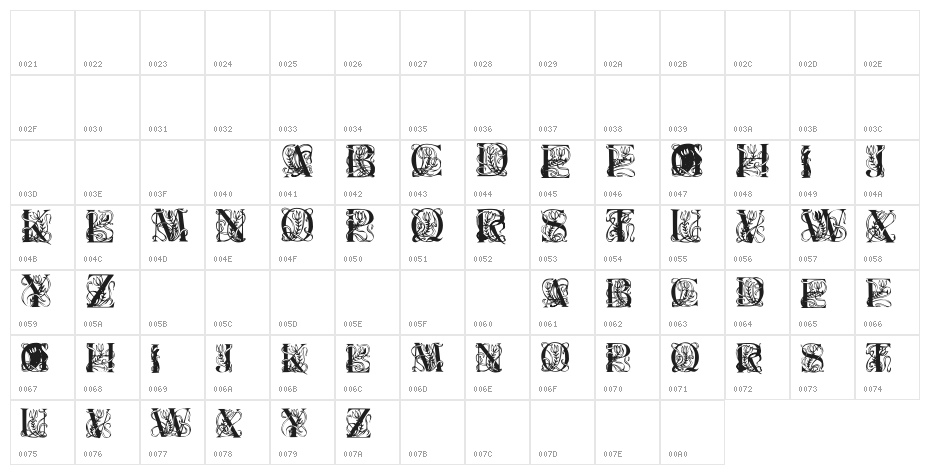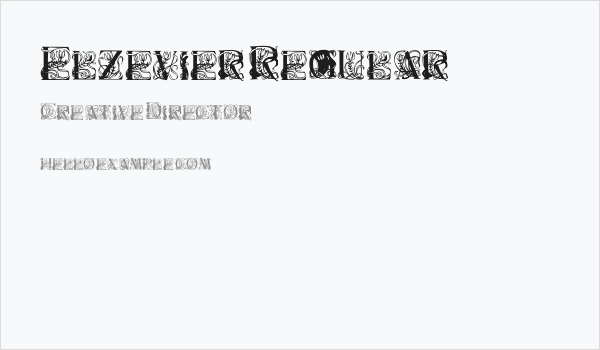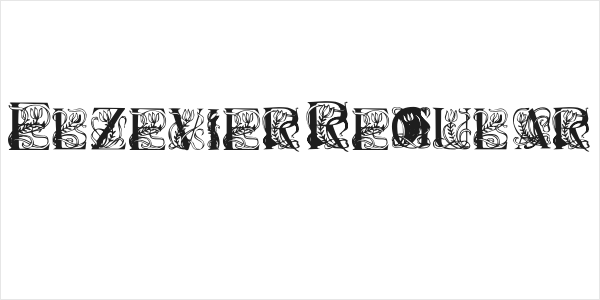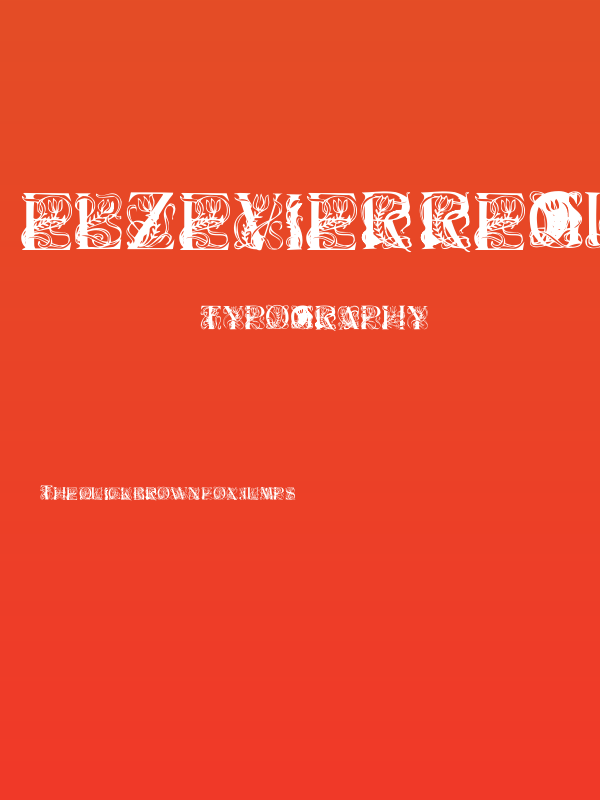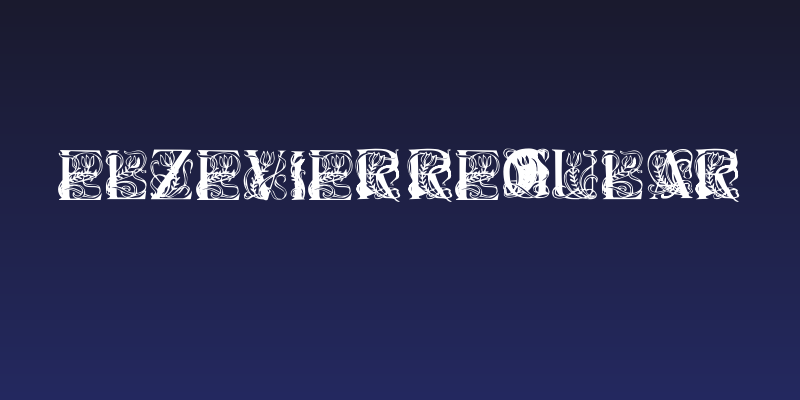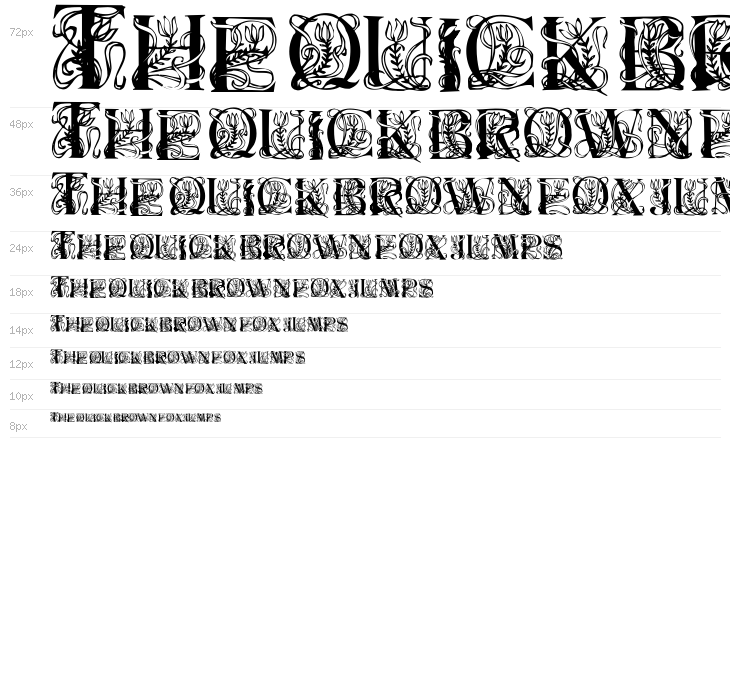
Elzevier Regular Font
Elzevier Regular Description
This font is a highly decorative and intricate typeface characterized by its elaborate swirls and flourishes. Each letter is adorned with ornate embellishments, creating a sense of elegance and sophistication. The design is reminiscent of vintage or classical styles, with a strong emphasis on artistic detail. The uppercase and lowercase letters maintain a consistent decorative theme, making it suitable for projects that require a touch of grandeur and opulence. The font's complexity may limit its use in body text but makes it ideal for standout headlines or artistic displays.
| Proposed Projects | Ideal for wedding invitations, luxury branding, artistic posters, and decorative headlines. |